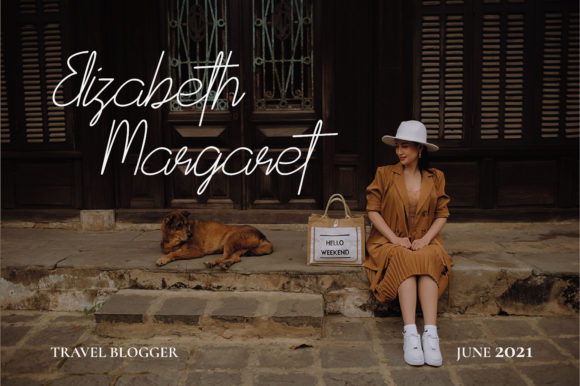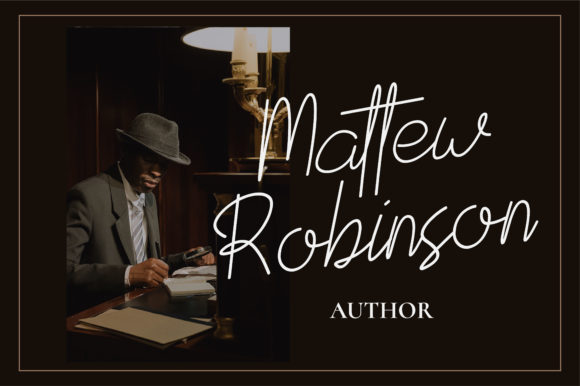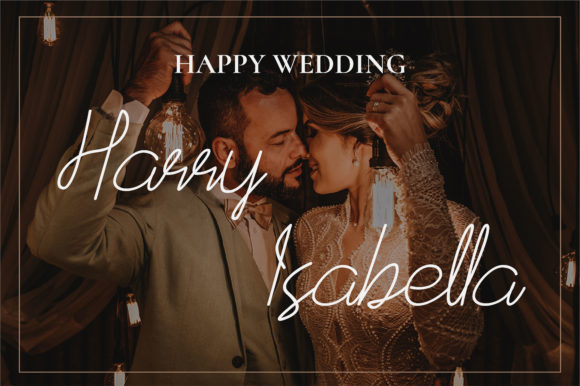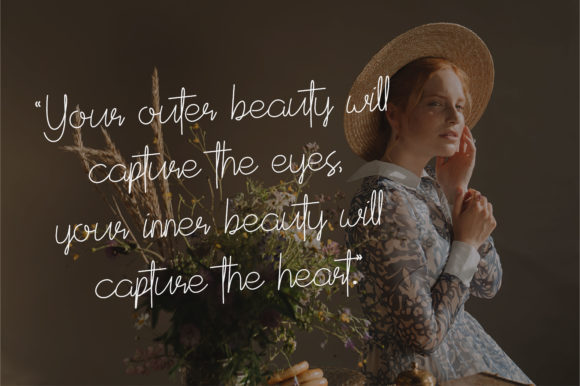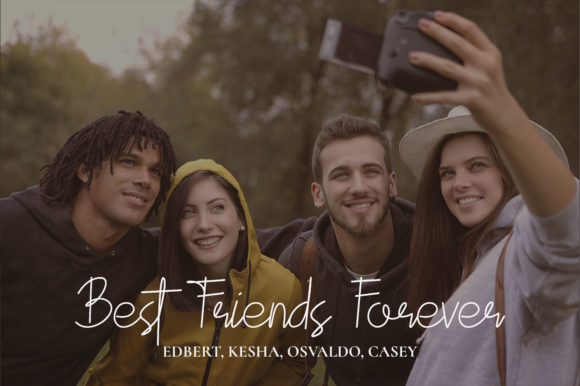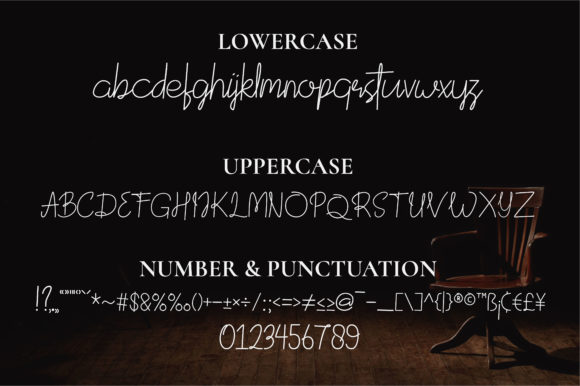
Introducing Devitaria Script Font: Elevate Your Designs with Elegance
In the world of typography, a font can make or break a design. For designers and crafters looking to add a touch of sophistication and style to their projects, Devitaria Script Font is an excellent choice. This beautiful script font is designed to bring a clean, thin, and smooth vibe to any design, making it a perfect fit for a wide range of creative endeavors.
What is Devitaria Script Font?
Devitaria Script Font is a stylish and delicate script font that is sure to impress. Its elegant and refined appearance makes it ideal for use in various design projects, from digital and print materials to branding and packaging. The font’s clean and thin lines give it a modern and fresh feel, while its smooth curves add a touch of sophistication.
Key Features of Devitaria Script Font
• Clean and Thin Lines: Devitaria Script Font features clean and thin lines that give it a modern and sleek appearance.
• Smooth Curves: The font’s smooth curves add a touch of elegance and sophistication to any design.
• Delicate and Refined: Devitaria Script Font is a delicate and refined font that is perfect for designs that require a touch of elegance.
• Highly Versatile: The font is highly versatile and can be used in a wide range of design projects, from digital and print materials to branding and packaging.
Uses of Devitaria Script Font
Devitaria Script Font is a highly versatile font that can be used in a wide range of design projects. Here are some of the many uses of this beautiful font:
• Digital and Print Materials: Use Devitaria Script Font in digital and print materials such as brochures, flyers, posters, and business cards.
• Branding and Packaging: The font is perfect for use in branding and packaging projects, such as logos, labels, and product packaging.
• Wedding and Event Designs: Devitaria Script Font is a popular choice for wedding and event designs, such as invitations, programs, and signage.
• Social Media Graphics: Use the font to create beautiful social media graphics, such as Instagram posts, Facebook covers, and Twitter headers.
Why Choose Devitaria Script Font?
There are many reasons why designers and crafters choose Devitaria Script Font for their projects. Here are a few:
• Unique and Elegant: Devitaria Script Font is a unique and elegant font that will add a touch of sophistication to any design.
• High-Quality Design: The font is designed with high-quality craftsmanship, ensuring that it looks great in any design.
• Easy to Read: Despite its delicate and refined appearance, Devitaria Script Font is easy to read, making it perfect for use in a wide range of design projects.
Tips for Using Devitaria Script Font
Here are a few tips for using Devitaria Script Font in your designs:
• Use it as a Headline Font: Devitaria Script Font is perfect for use as a headline font, adding a touch of elegance and sophistication to any design.
• Pair it with a Sans-Serif Font: Pair Devitaria Script Font with a sans-serif font, such as Arial or Helvetica, to create a beautiful contrast.
• Experiment with Colors: Experiment with different colors to find the perfect combination that complements your design.
In conclusion, Devitaria Script Font is a beautiful and elegant script font that is perfect for designers and crafters looking to add a touch of sophistication to their projects. Its clean, thin, and smooth vibe makes it a great choice for a wide range of design projects, from digital and print materials to branding and packaging. With its high-quality design, ease of use, and affordability, Devitaria Script Font is an excellent choice for anyone looking to elevate their designs with elegance.